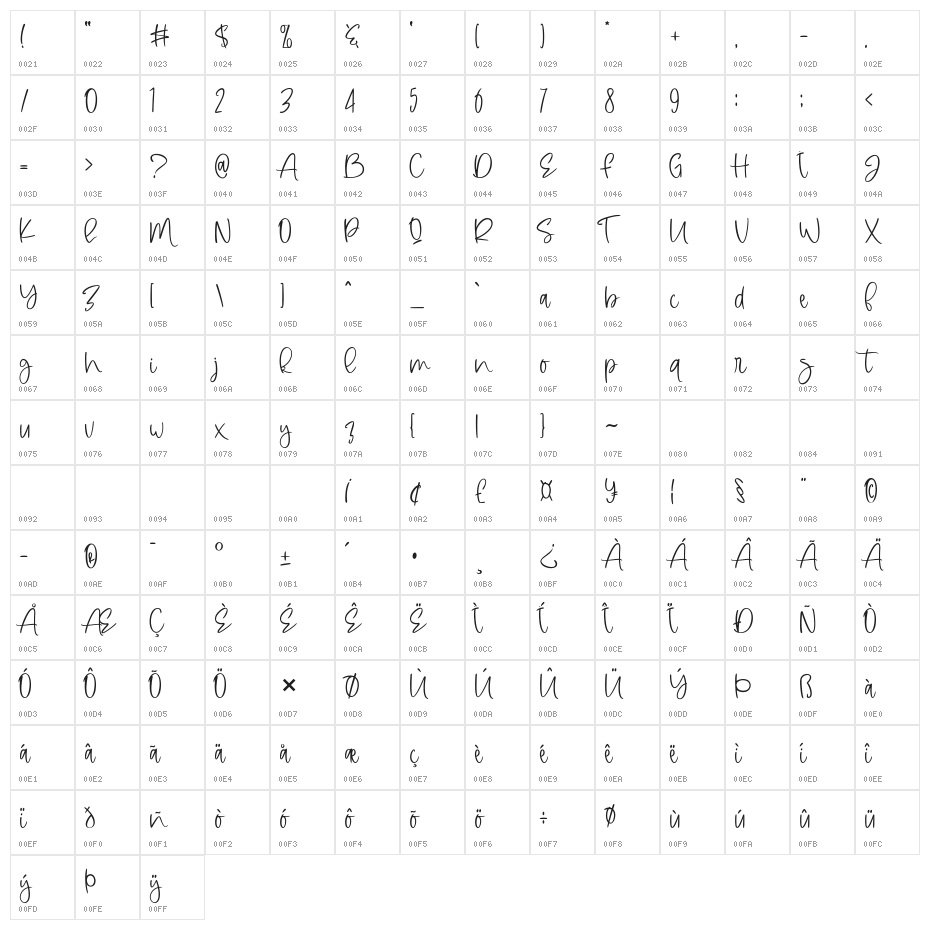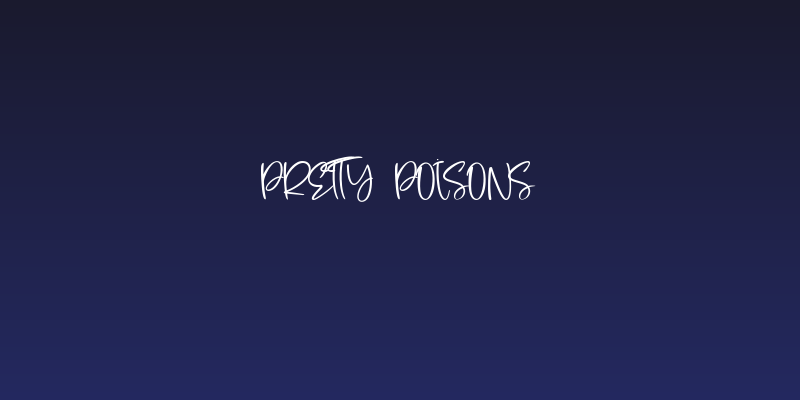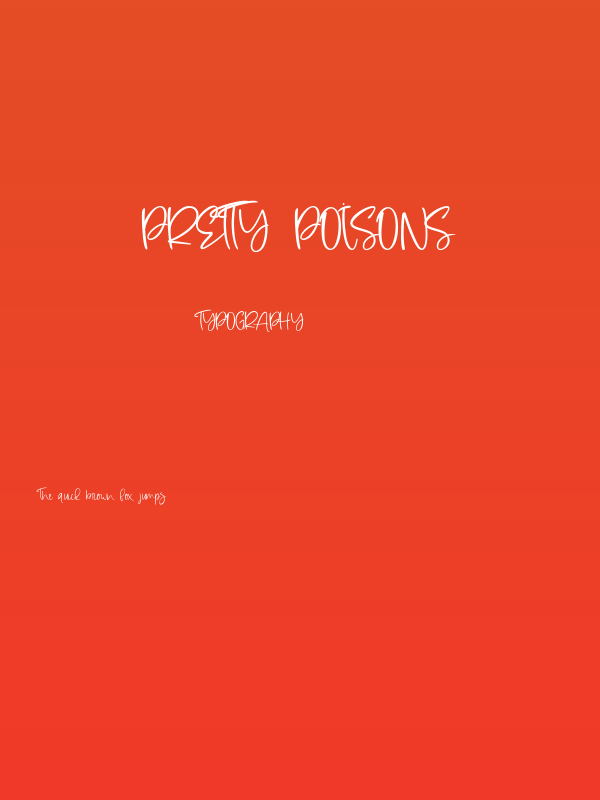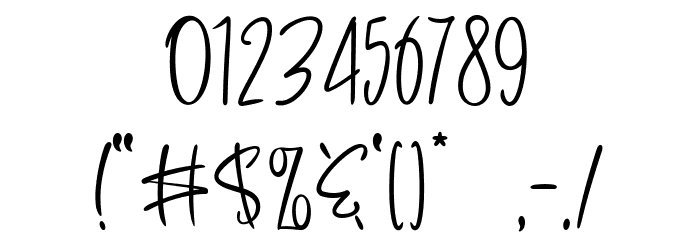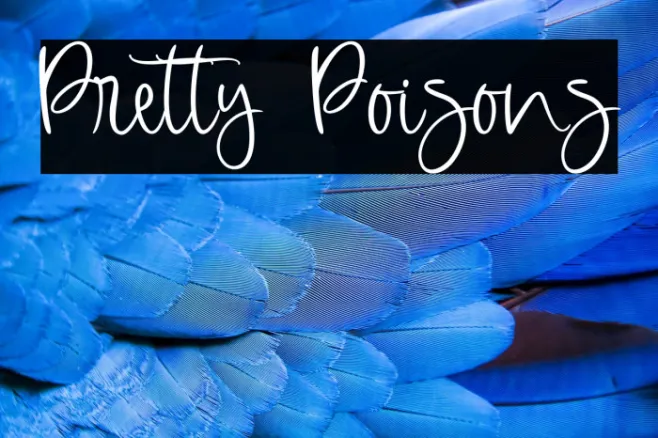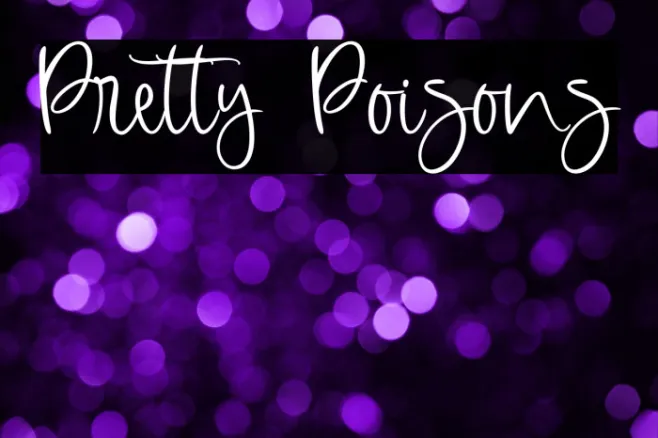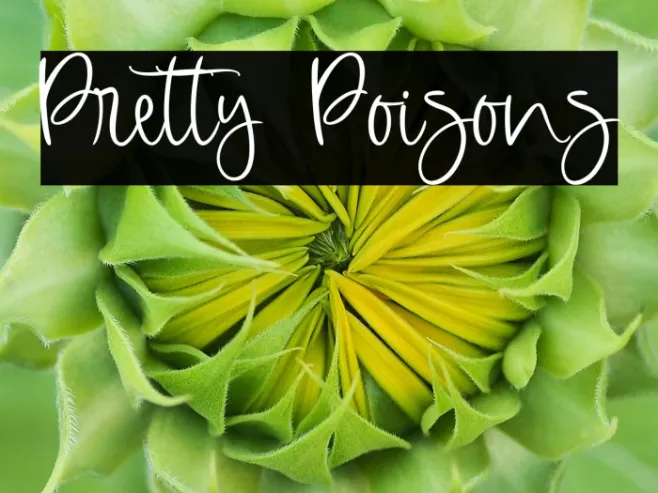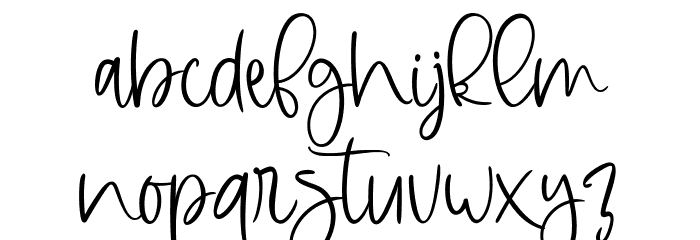
Pretty Poisons Font
Pretty Poisons Description
This font features a playful and whimsical handwritten style, characterized by its fluid and dynamic letterforms. The uppercase letters exhibit a lively bounce, while the lowercase letters maintain a consistent flow, creating a harmonious balance. The numerals and special characters are crafted with the same energetic flair, making them stand out. The strokes are smooth and slightly varied in thickness, adding to the casual and approachable feel. This font is perfect for projects that require a personal touch, such as invitations, greeting cards, or playful branding.
| Use Case | Invitations, Greeting cards, Playful branding |
| Proposed Projects | Ideal for invitations, greeting cards, playful branding, and personal projects. |